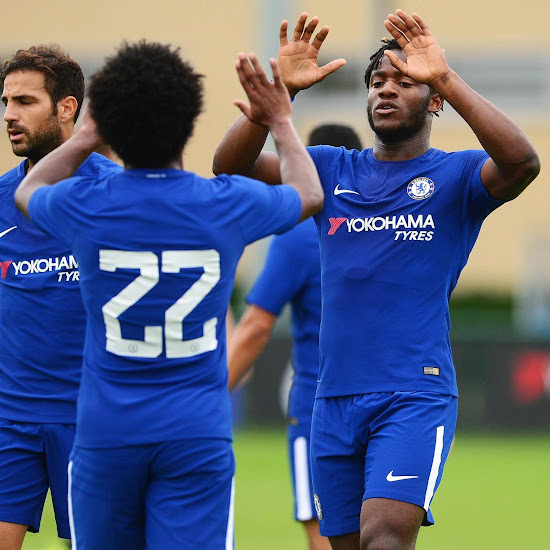
On-Pitch: Chelsea Debut Nike Kit & New Cup Font
Chelsea kicked off its pre-season friendly season with 8-2 win over Championship side Fulham at Cobham. The first outing of the 17-18 season, it brought the debut not only of the new Nike kit but also of the club's new cup font.
Chelsea 17-18 Home Kit - On-Pitch
Chelsea's 2017-2018 Nike kit has a very simple and modern appearance in blue and white, based on the brand's omnipresent Vapor template.
Besides the kit, Chelsea also offered a first (and very promising) look at its new cup font, set to be used in all competitions besides league. It has an angular and streamlined design with the subtle logo printed at the foot of the numerals.